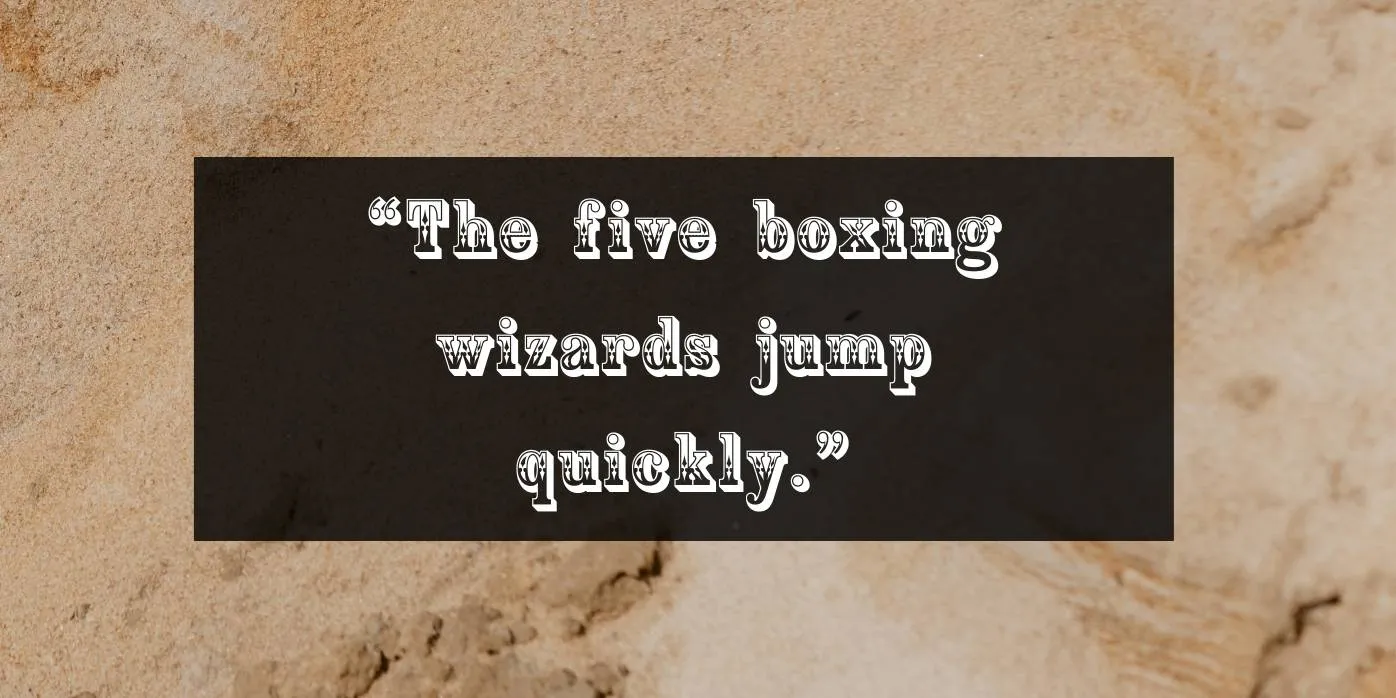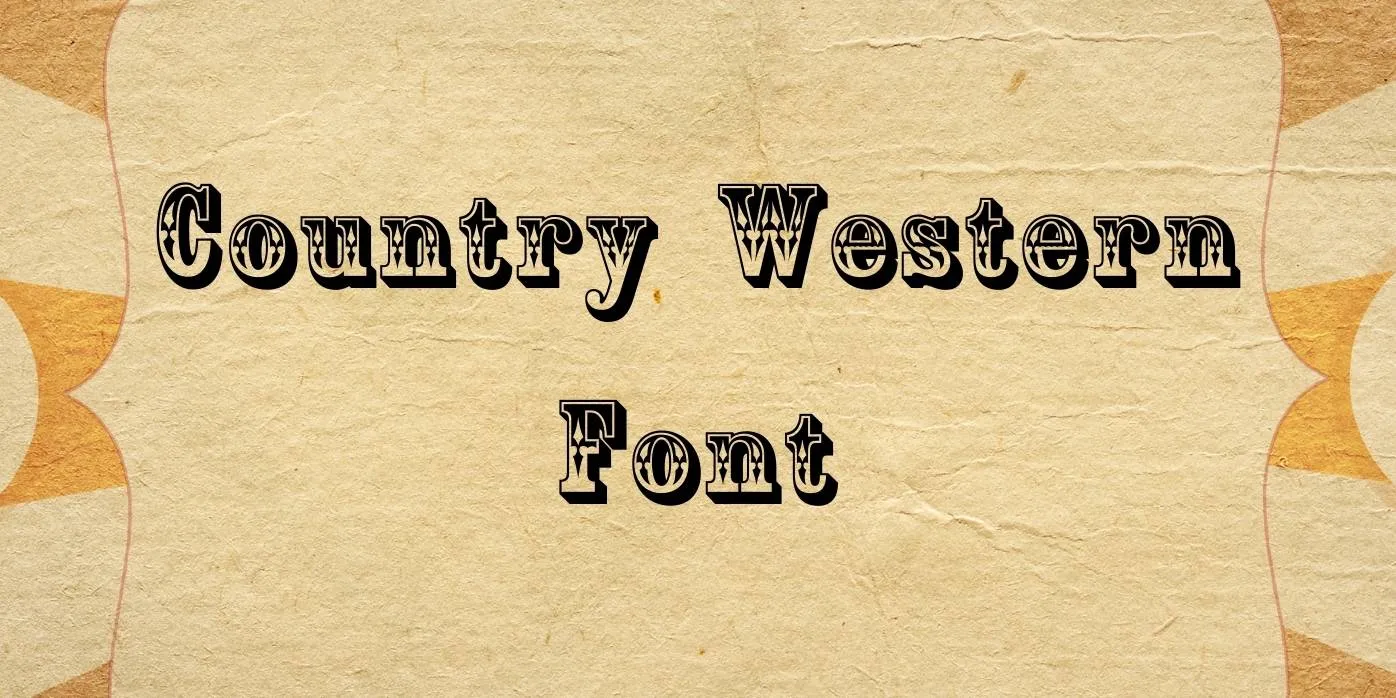
Country Western Font
In this post, we present a new stylish and attractive typeface named Country Western Font. This typeface belongs to the fancy font family. Clarendon Ornamented designed this stunning font family. This classy family contains twenty-one different styles.
This remarkable typeface is available in three styles Regular, Condensed, and Bold. All of these styles have their own unique characters. Moreover, this family supports many international languages. You can easily use it for commercial as well as personal purposes.